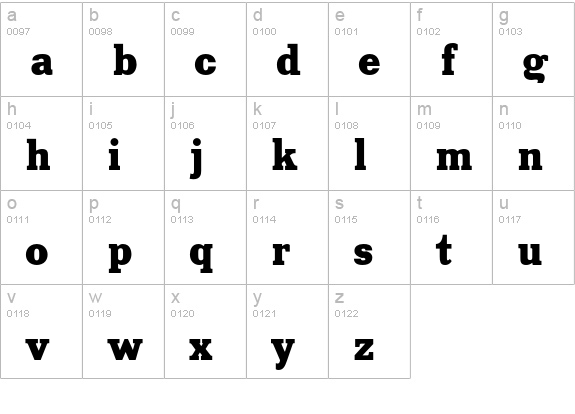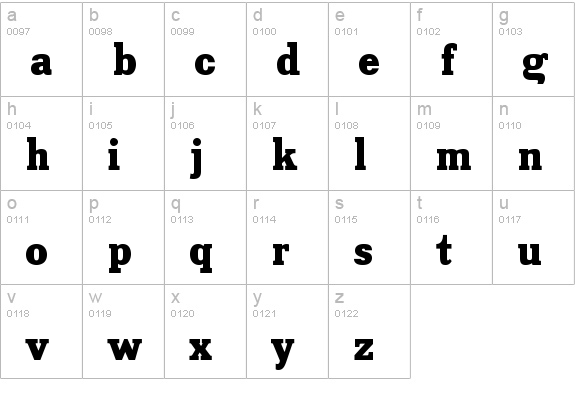
PT Xenia Cyrillic Font Details
The PT Xenia Cyrillic font is a visually striking and elegant typeface that exudes charm and sophistication. Its sleek design and clean lines make it perfect for a wide range of projects, from branding to editorial design. The font's classic yet modern aesthetic is sure to make a statement and captivate your audience. What's even better is that the PT Xenia Cyrillic font is available for free download at FontsMarket.com. This means you can easily access this beautiful font and incorporate it into your creative projects without any cost. Don't miss out on this opportunity to enhance your designs with the timeless beauty of the PT Xenia Cyrillic font. Download it now and elevate your work to new levels of elegance and style.